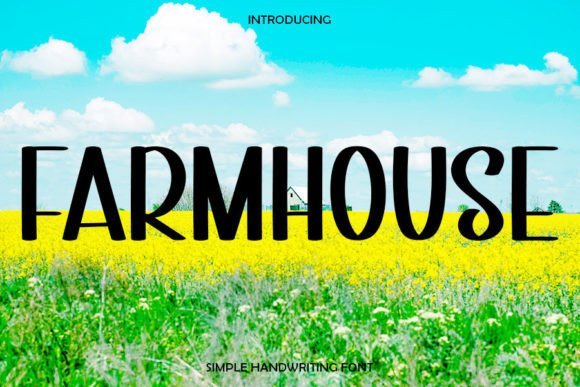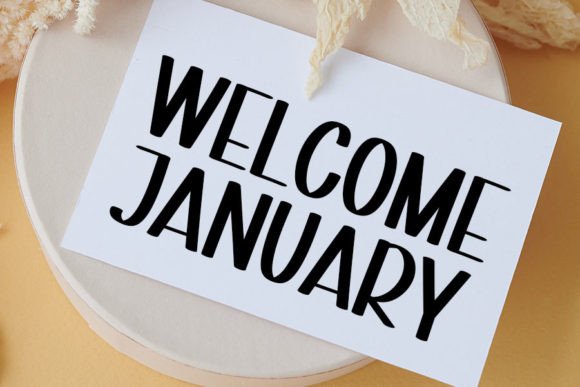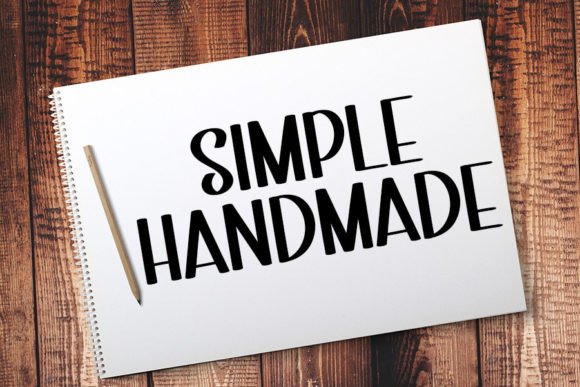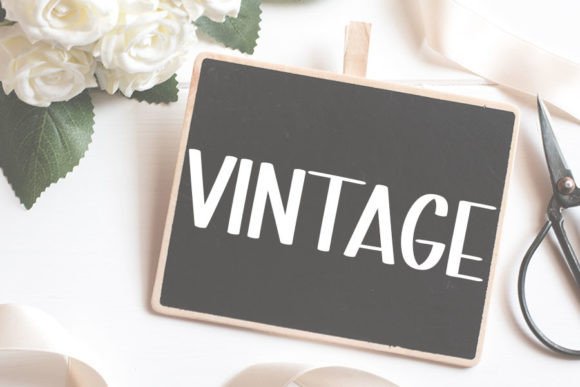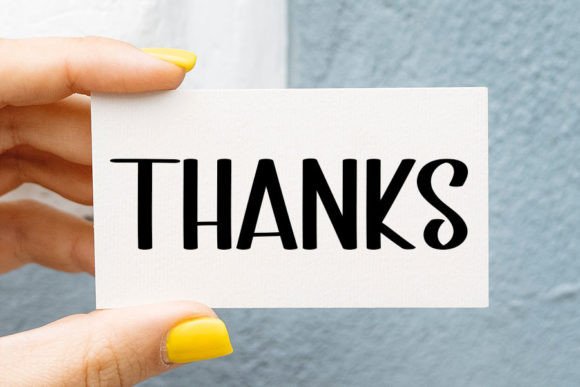
The Perfect Touch of Whimsy: Introducing Farmhouse Font
Remember the feeling of receiving a handwritten letter from a loved one? The way the words danced across the page, filled with character and personality? That’s the magic of handwritten fonts, and one that can transport us back to a simpler time.
Enter Farmhouse Font, a delicate, handcrafted typeface designed to bring a touch of elegance and uniqueness to your designs. Whether you’re crafting invitations, labeling food products, or creating titles for your next big project, this font is the perfect addition to your toolkit. With its charming, rustic feel, Farmhouse Font adds a layer of depth and emotion to any design, making it a valuable asset for designers looking to stand out from the crowd.
Farmhouse Font Key Features
- Font Family: Farmhouse Font is a unique, hand-drawn font designed to evoke a rustic, countryside feel.
- Unique Characteristics: Features hand-drawn imperfections, subtle texture, and a warm, inviting feel, perfect for creating a cozy atmosphere in designs.
Farmhouse Font Review
As a designer, I’ve had the pleasure of working with various fonts, and the Farmhouse Font is one that caught my attention. Here’s my honest review.
- The unique, hand-drawn feel of the font adds a touch of warmth and personality to any design.
- The font is highly legible, even at smaller font sizes, making it perfect for body text and headings.
- The font family includes a wide range of weights and styles, providing ample options for customization.
- The font is highly versatile and can be used in a variety of designs, from rustic to modern.
- The font may not be suitable for formal or corporate designs due to its casual, hand-drawn feel.
- The font can be a bit too playful for some designs, so it’s essential to balance it with more serious elements.
- The font may not be as polished or refined as some other fonts on the market.
The Farmhouse Font is a great choice for designers looking for a unique, hand-drawn font that adds personality to their designs. While it may have some limitations, it’s a versatile font that can be used in a variety of designs. With the right balance of elements, the Farmhouse Font can add a touch of warmth and character to any design.
Farmhouse Font is commonly used in designs that evoke a rustic, country-inspired feel, such as:
- Rustic wedding invitations and decor
- Country-themed social media graphics and banners
- Rustic home decor and furniture designs
- Country-inspired logos and branding materials